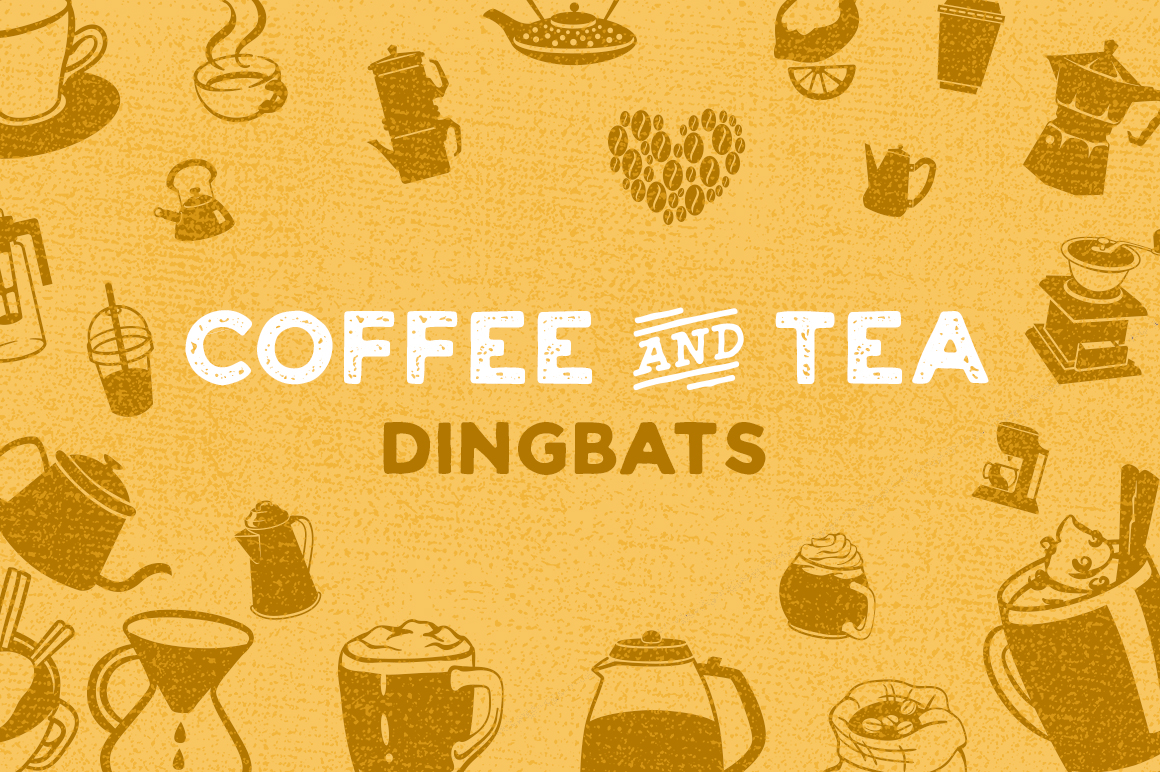
About Coffee & Tea Dingbat Font
Introducing the Coffee & Tea Dingbat Font: Sip and Create with Delightful Dingbats!
Are you a coffee or tea lover? Do you find inspiration in the aroma and flavors of your favorite beverages? Then the Coffee & Tea Dingbat Font is perfect for you! This delightful font is filled with 30 unique dingbats that celebrate the world of coffee and tea.
With the Coffee & Tea Dingbat Font, you can add a touch of caffeine-inspired charm to your designs. Whether you’re designing menus for a café, creating artwork for a coffee lover’s gift, or simply expressing your love for the comforting ritual of sipping a hot cup of tea, these dingbats will bring your designs to life.
Each dingbat in the Coffee & Tea Dingbat Font is carefully crafted with attention to detail, capturing the essence of coffee beans, teacups, mugs, teapots, and other elements that are synonymous with the coffee and tea culture. From intricate latte art designs to charming teacup illustrations, this font offers a versatile range of options for your creative projects.
Whether you’re designing labels for coffee and tea packaging, creating custom mugs or coasters, or even designing social media graphics to promote your café or online tea shop, the Coffee & Tea Dingbat Font offers a wide range of options to enhance your designs. Combine the dingbats with text, experiment with different colors and sizes, and let your creativity flow.
So, grab a cup of your preferred brew, sit back, and explore the possibilities with the Coffee & Tea Dingbat Font. Let these delightful dingbats infuse your designs with the warmth, aroma, and charm of coffee and tea. Whether you’re a professional designer or simply enjoy creating for your own pleasure, this font will add a dash of flavor and a hint of caffeinated inspiration to your projects.